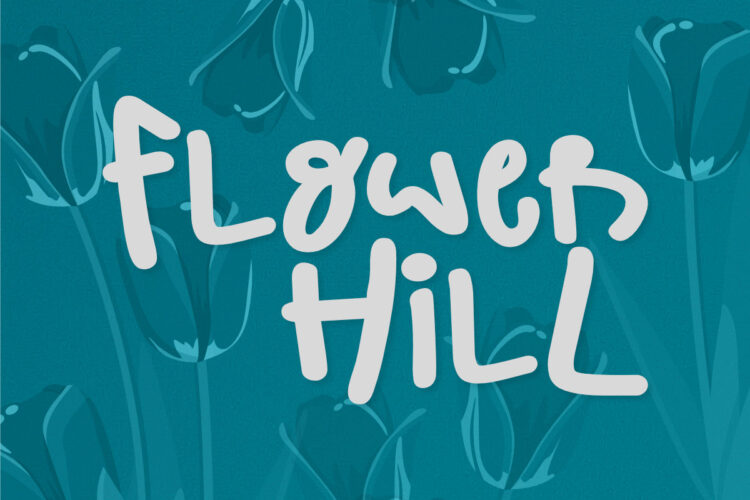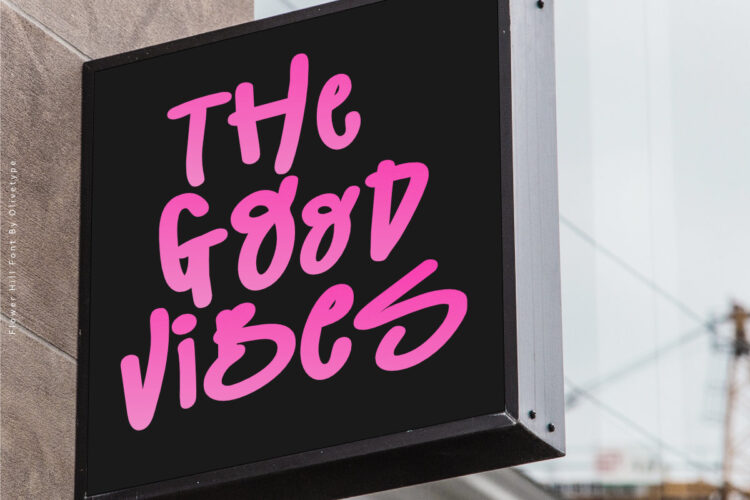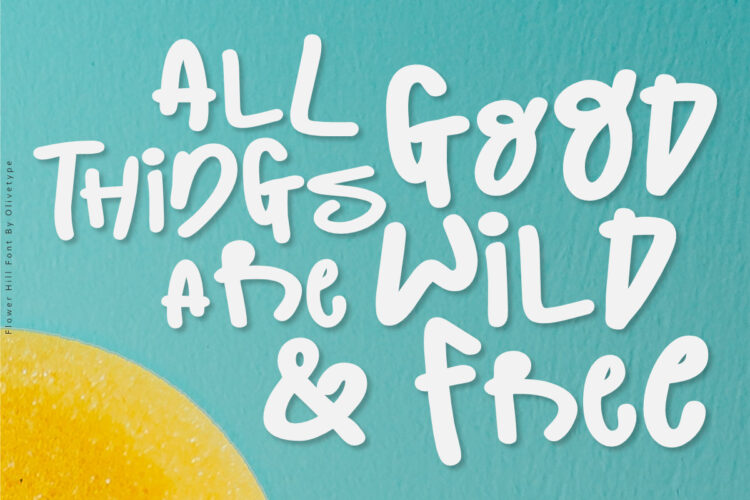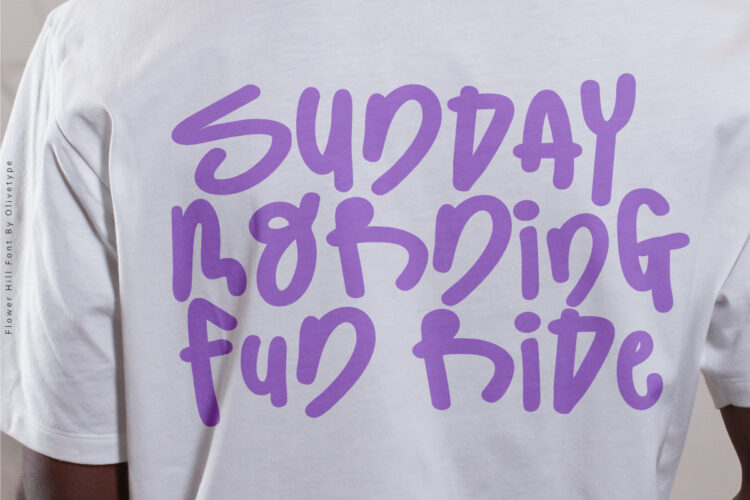
Introducing Flower Hill, a fun and quirky display font! With its vibrant and playful design, Flower Hill will instantly bring fun to any project. Whether you’re designing a party invitation or creating social media graphics, this font can adapt to any theme or style effortlessly.
The font Flower Hill contains 208 glyphs. It supports 66 languages, from English to Zulu.